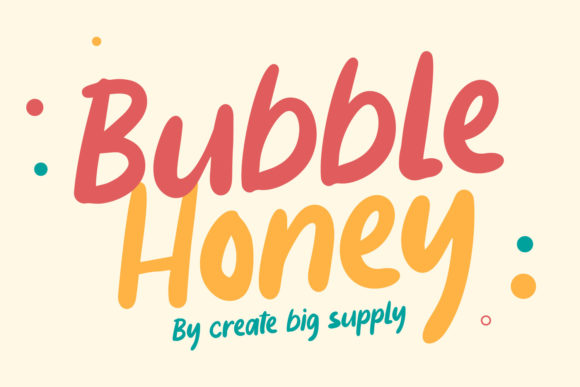
Bubble Honey Font
Bubble Honey is a cute, fun and playful display font. No matter the topic, this font will be an incredible asset to your fonts’ library, as it has the potential to elevate any creation.